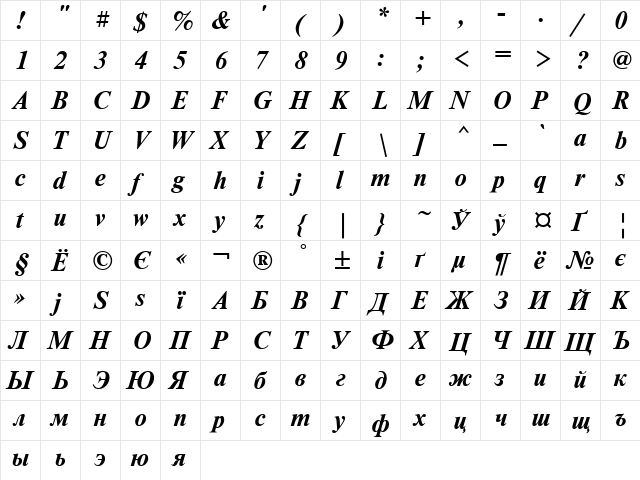
NewtonCTT Bold
Design Context for NewtonCTT Typeface
NewtonCTT takes a measured approach to typography — its balanced proportions and neutral character make it a reliable workhorse for both digital and print work. The heavy weight commands attention and anchors typographic hierarchies.